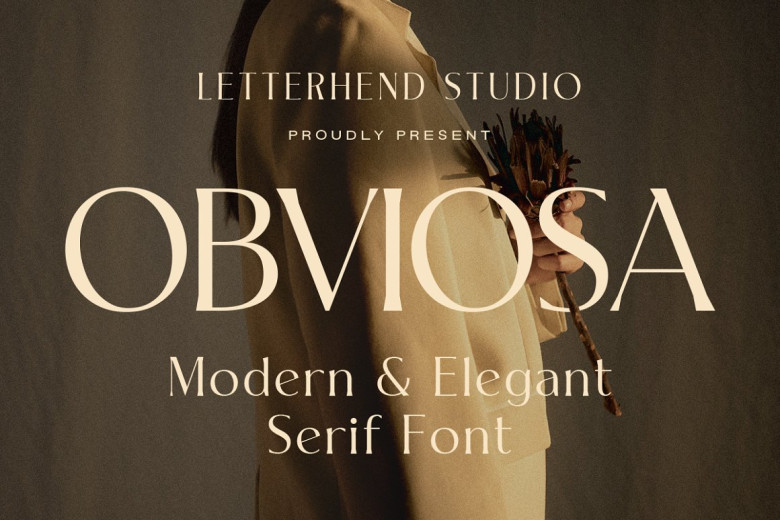
Obviosa Font
Obviosa is a Serif stylish and trendy typeface with a traditional feel. Its fine strokes are full of elegance and breathing room fit for a refined air in any top-drawer design project. As shown in the liberal and powerful ornamentation letter forms of this excerpt, Obviosa’s elegant style will give any work a touch of class.
Obviosa Serif Font